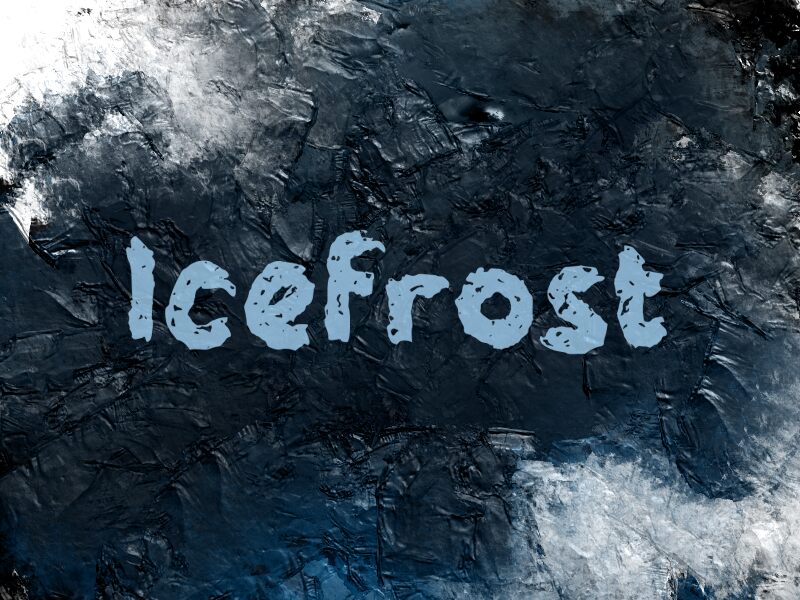
Icefrost font by wep is a free decorative display typeface that looks like it’s been carved out of black ice and left to melt. Each letter feels crusted with frozen, inky splatters, giving words a gritty, weather-beaten texture that’s both eerie and playful. The rounded shapes keep it readable while the rough, chipped edges inject instant atmosphere, like frost creeping across a window in the dark.
Using Icefrost, you can push spooky winter themes, haunted-house branding, horror movie titles, creepy game logos, seasonal posters, eerie party invites, and edgy social graphics without extra illustration work. This free font brings its own built-in texture, so it shines at larger sizes where every drip and crack can be seen. Pair Icefrost with a clean geometric sans in small text to keep the chaos focused in your headlines.
Icefrost